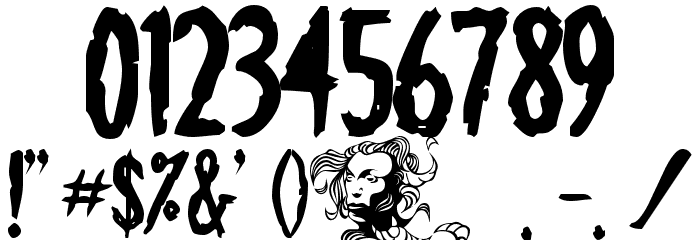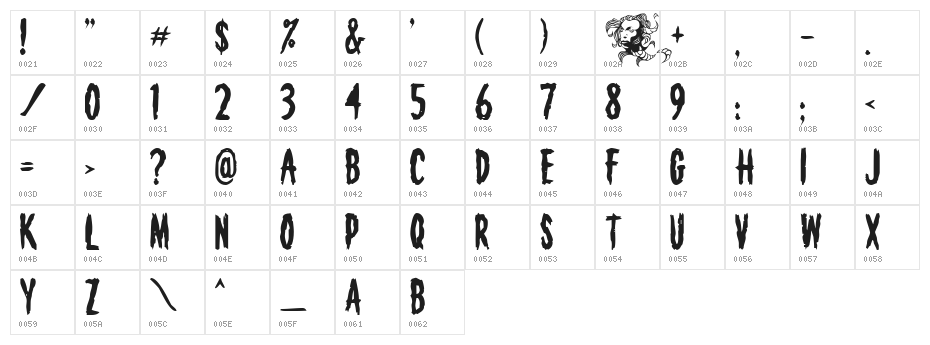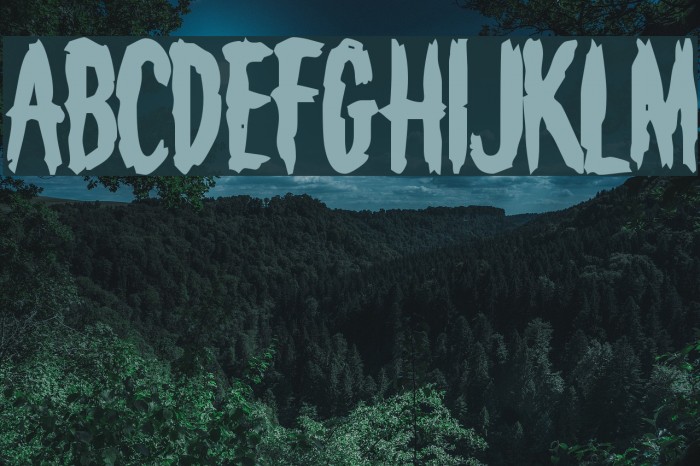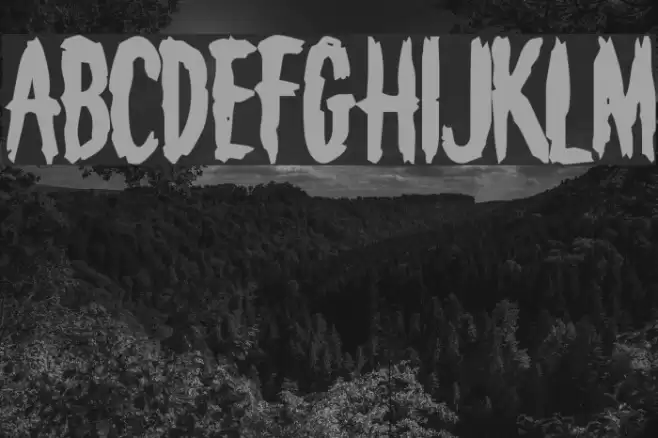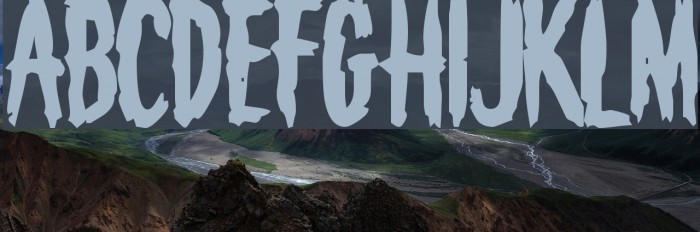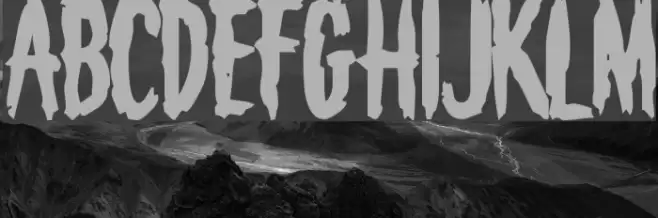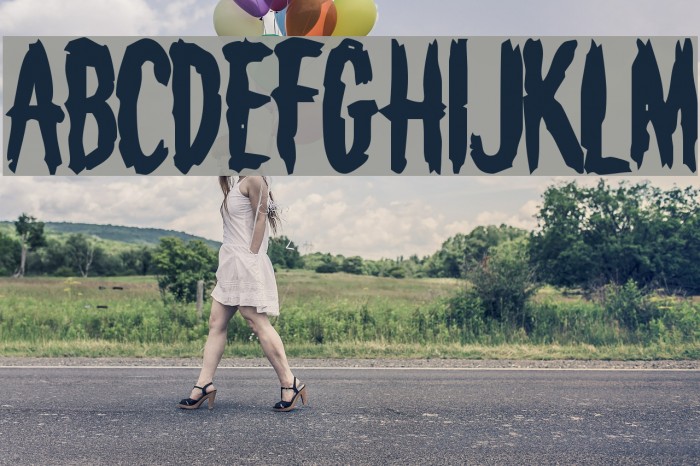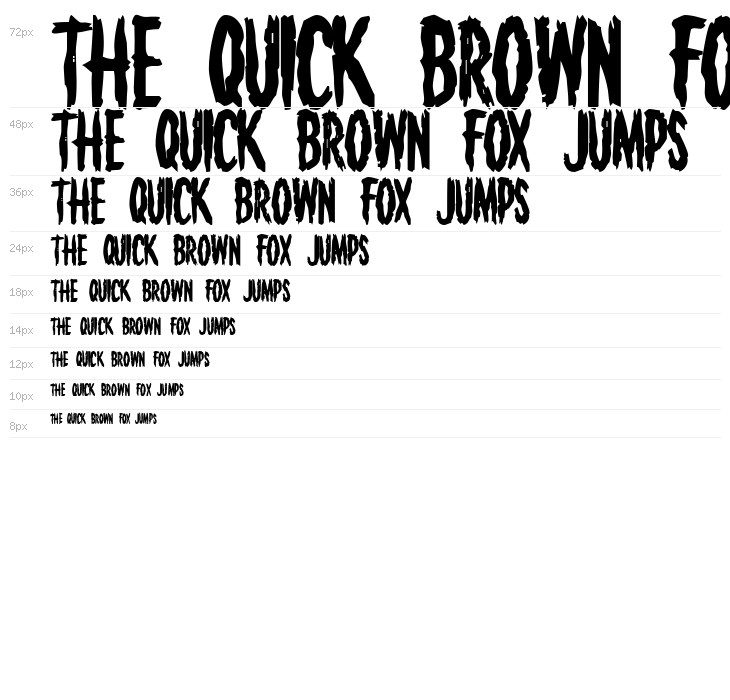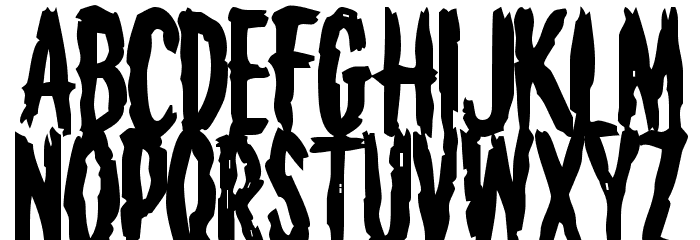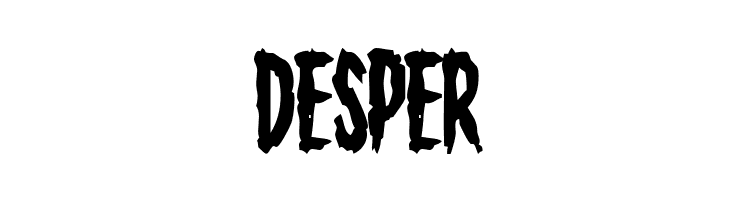
Deathknell Font
Deathknell Description
This font features a bold and dramatic style, characterized by its jagged and irregular edges that give it a distressed, grunge-like appearance. The letters are tall and narrow, with a hand-drawn quality that adds to its edgy and rebellious vibe. The uppercase and lowercase letters maintain a consistent style, with the uppercase being slightly more pronounced. Numbers and special characters follow the same design ethos, ensuring a cohesive look across all text elements. This font is perfect for projects that require a strong, impactful visual presence.
| Overall Style | Grunge, Edgy, Rebellious |
| Proposed Projects | Ideal for album covers, horror movie posters, edgy branding, and streetwear designs. |